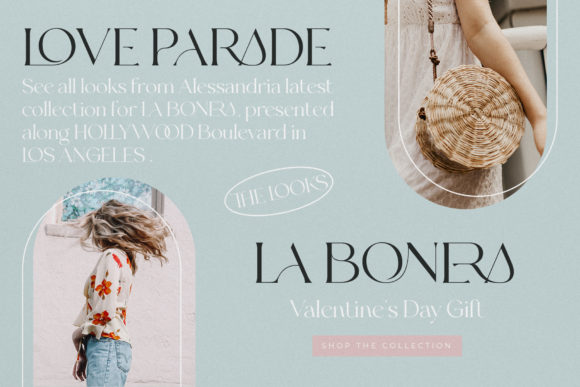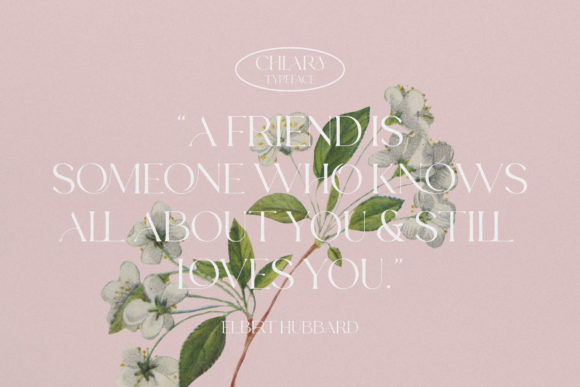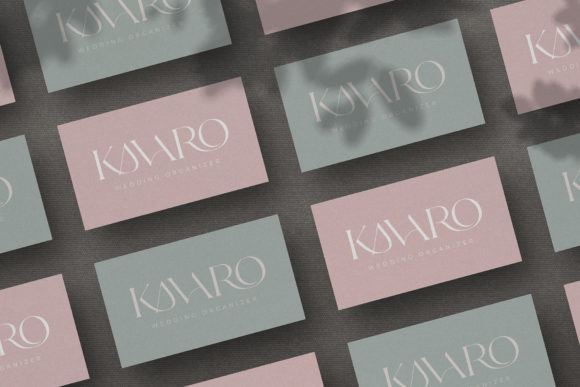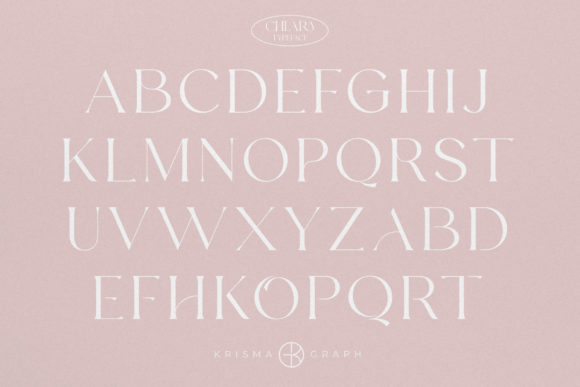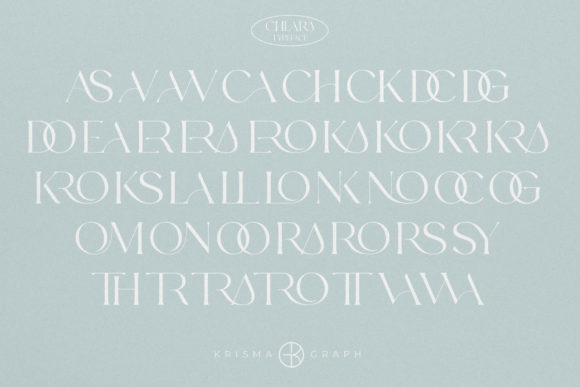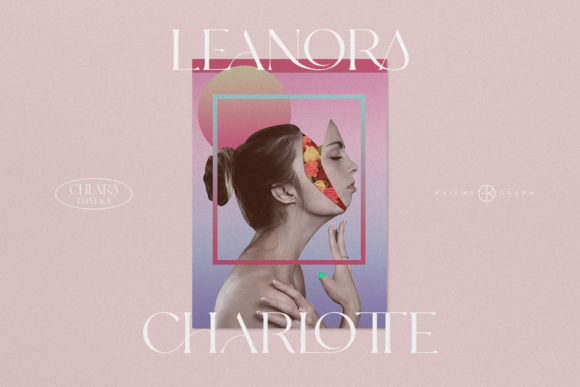
The Designer’s Delight: Falling in Love with Chlara Font
I’ll never forget the time I was working on a project for a high-end fashion brand, and my client requested a font that exuded elegance and sophistication. I scoured the internet, tried out countless fonts, but nothing seemed quite right. That was until I stumbled upon Chlara Font. ✨ It was love at first sight! The stylish and elegant serif font won my heart, and I knew I had found the perfect fit for my project.
An Honest Review of Chlara Font
- ✅ Extremely versatile style that fits a wide range of design projects
- ✨ Elegant and sophisticated aesthetic that adds a touch of luxury to any design
- 🔥 Highly legible, even at small font sizes
- 🎨 Beautifully crafted with attention to detail, making it perfect for high-end designs
While Chlara Font is an amazing font, there are a few things to keep in mind: 🤔
- ⚠️ Some users may find the font a bit too ornate for certain projects, such as casual or playful designs
- ⚠️ The font may not be suitable for very long blocks of text, as it can be a bit too elegant for body copy
- Experiment with OpenType features, such as ligatures and stylistic alternates, to add an extra touch of elegance to your design
- Explore the font’s glyphs and OpenType features, such as swashes and ornaments, to add a unique touch to your design
- Use the font’s stylistic alternates and ligatures to add visual interest to your document
The Story Behind Chlara Font
Chlara Font was designed by a team of typographers who wanted to create a font that would evoke the elegance and sophistication of luxury brands. Inspired by classic serif fonts, they crafted Chlara Font with attention to detail and a passion for beautiful design.
Q: What is Chlara Font?
A: Chlara Font is a stylish and elegant serif font perfect for high-end designs, luxury brands, and sophisticated projects.
Q: Is Chlara Font easy to read?
A: Yes, Chlara Font is highly legible, even at small font sizes, making it perfect for a wide range of design projects.